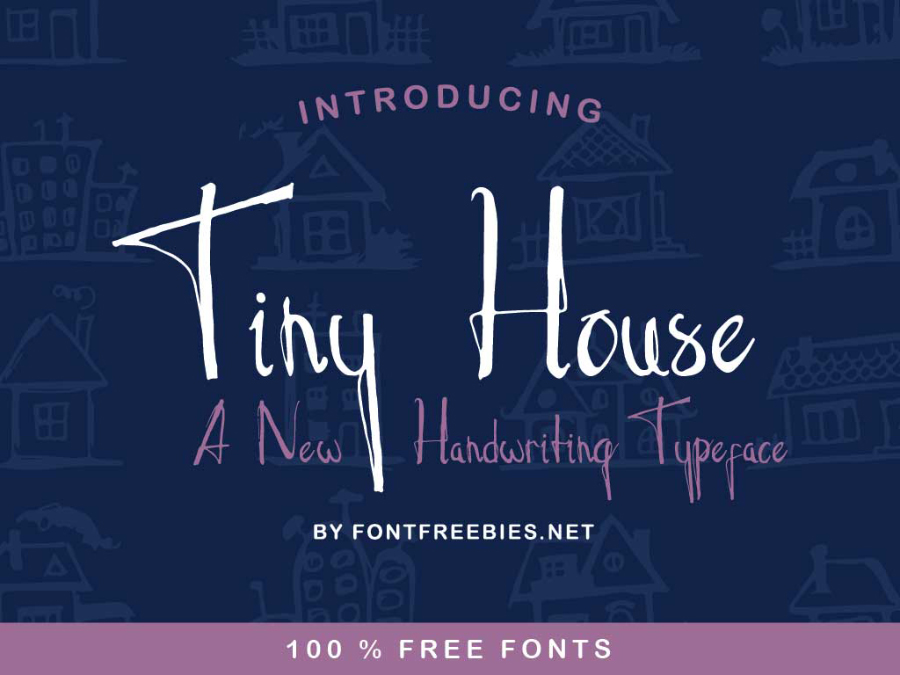
Tiny House Script Font
Introducing Tiny House! It is designed and shared by Fontfreebies.net. Tiny House Typeface is a unique, cool and modern handwritten font. It’s hand look style makes it perfect for use in all your design projects be it logos, signatures, labels, packaging design, blog headlines.